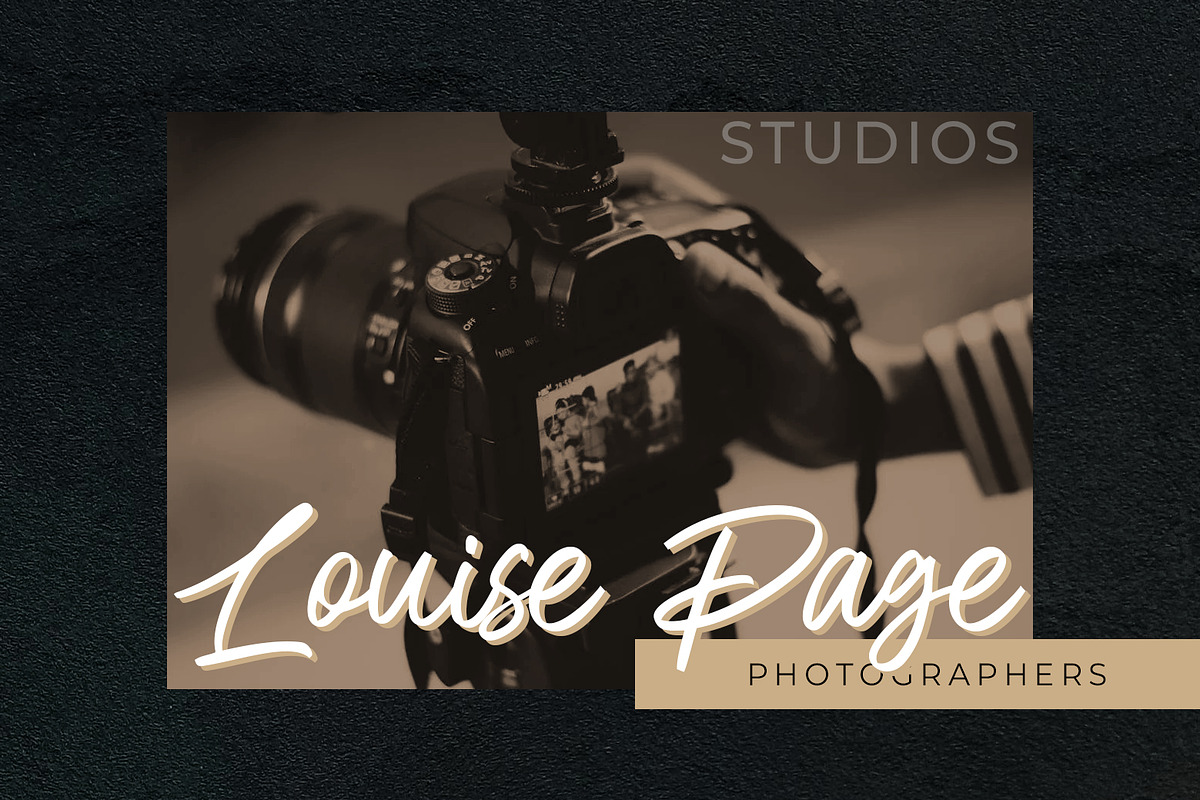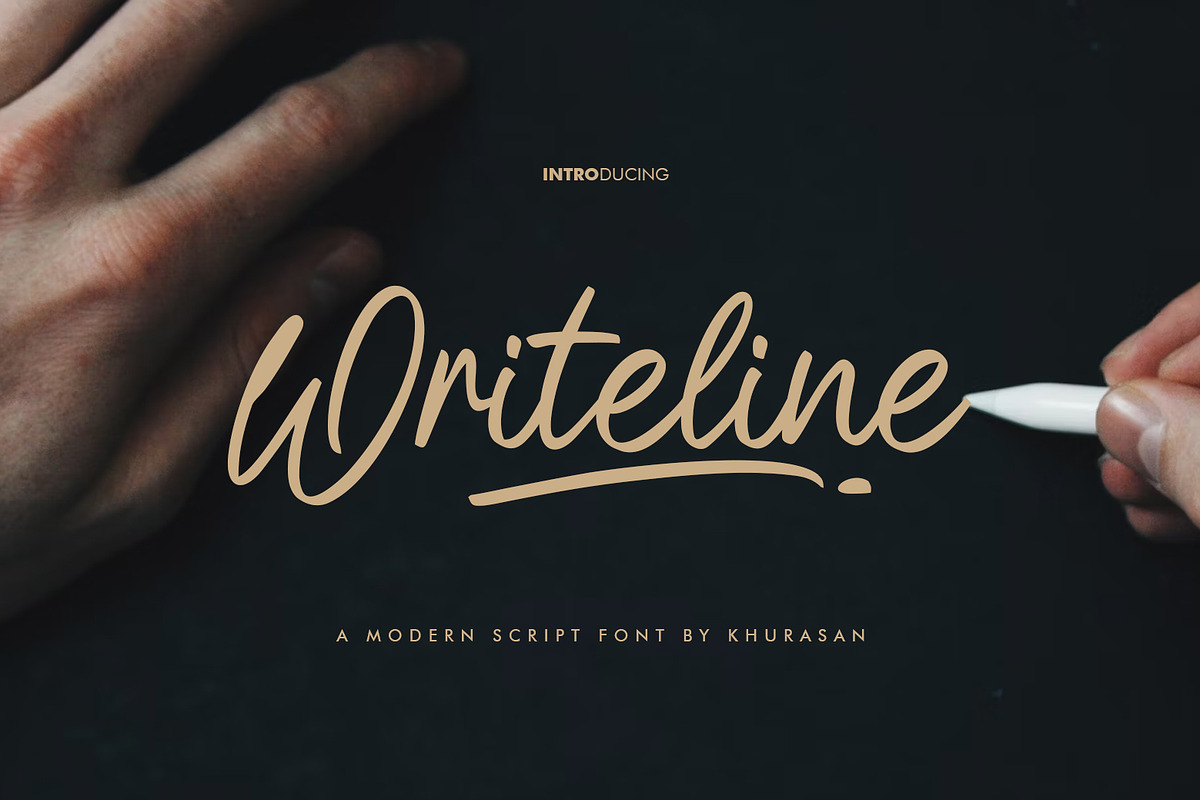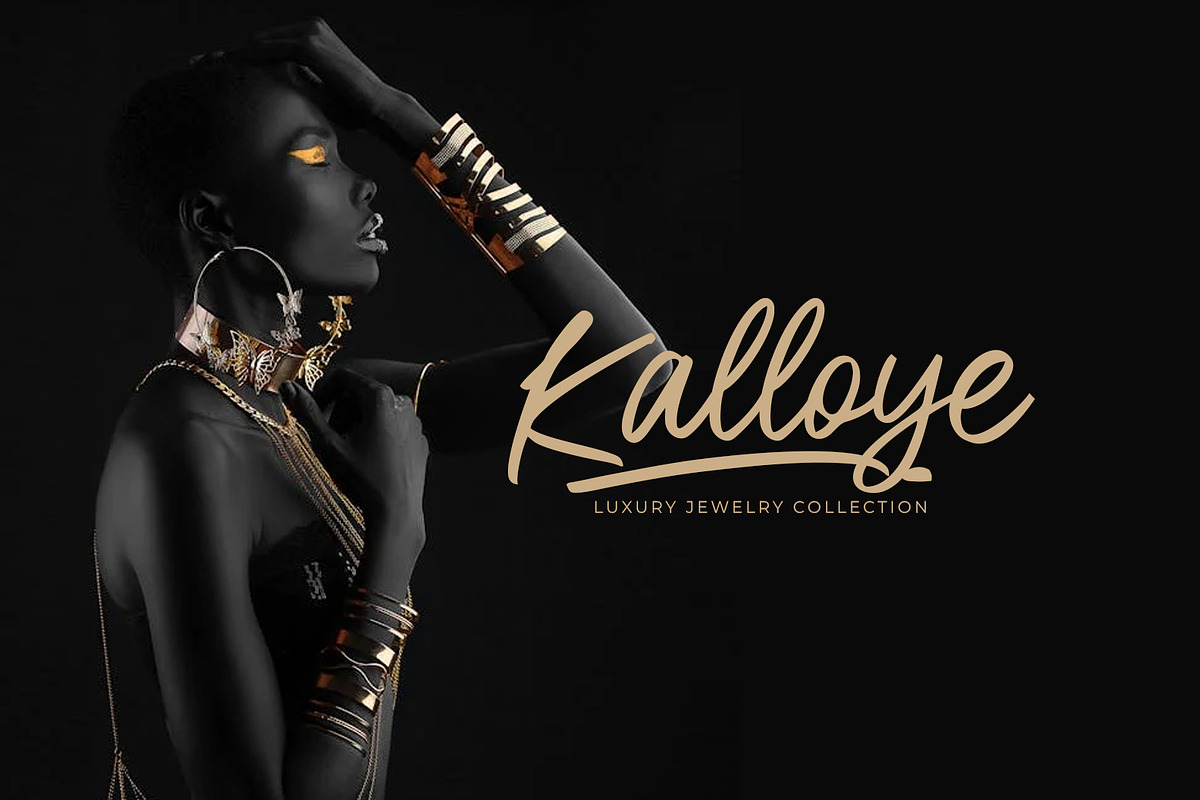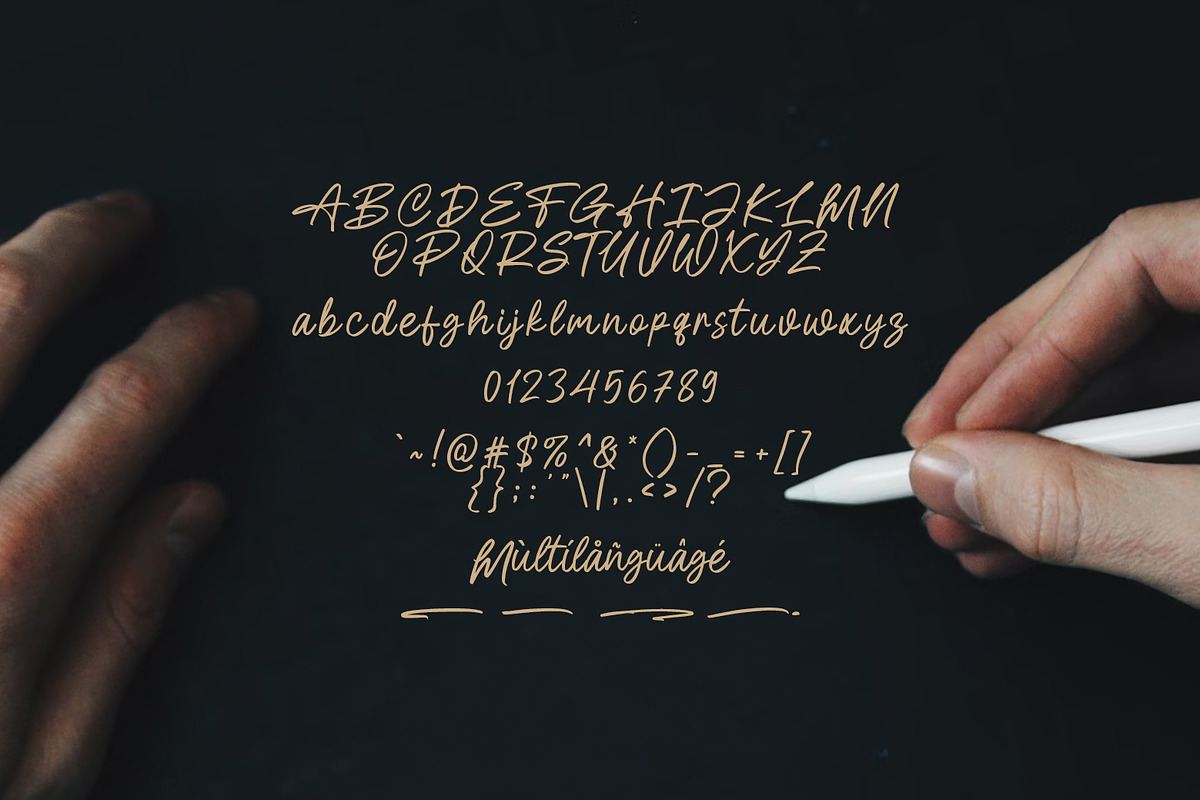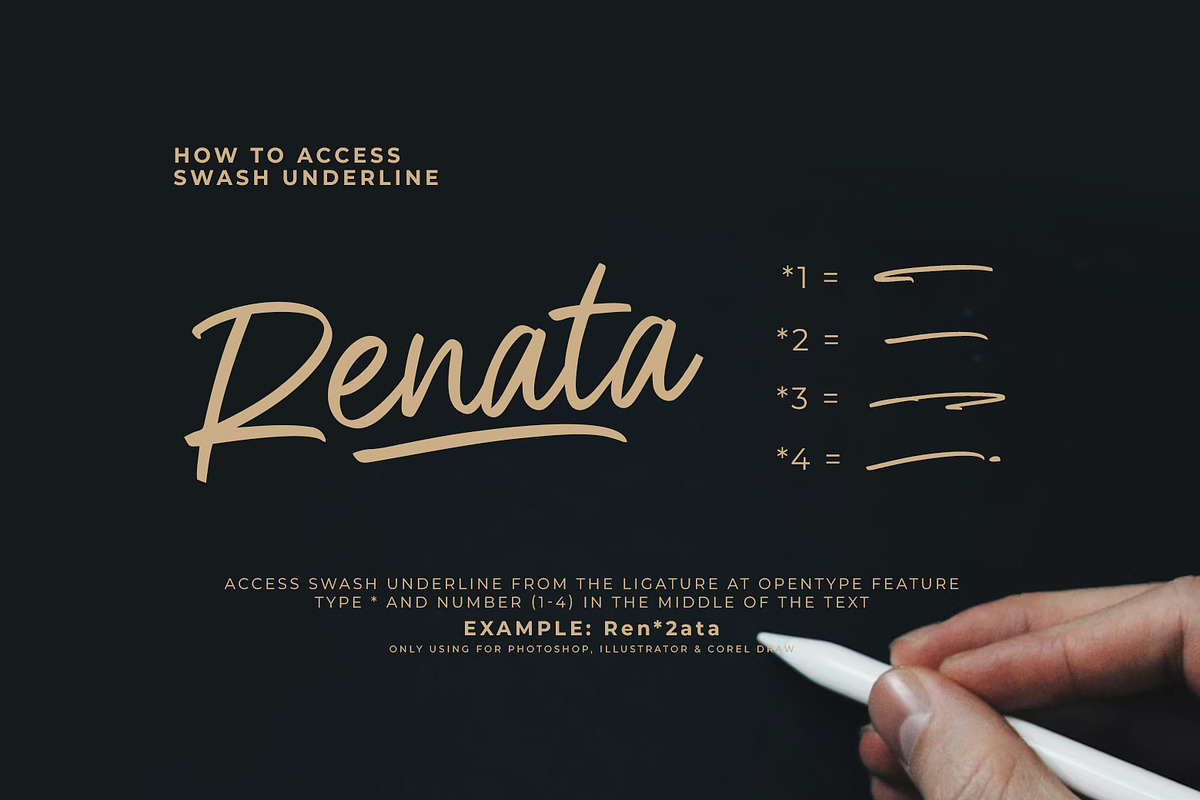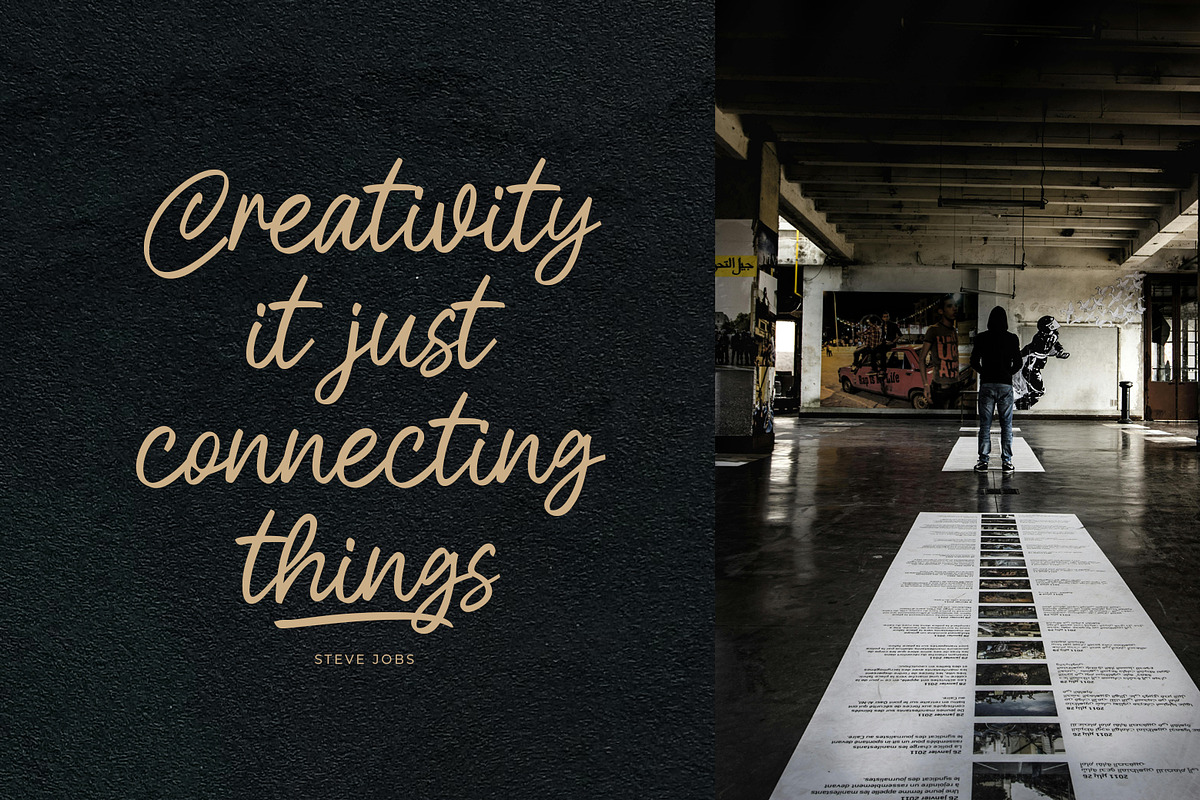
Writeline Script
Writeline is a modern script font. Writeline font suitable for logo, branding, greeting card, poster and any design that you create…!
Khurasan